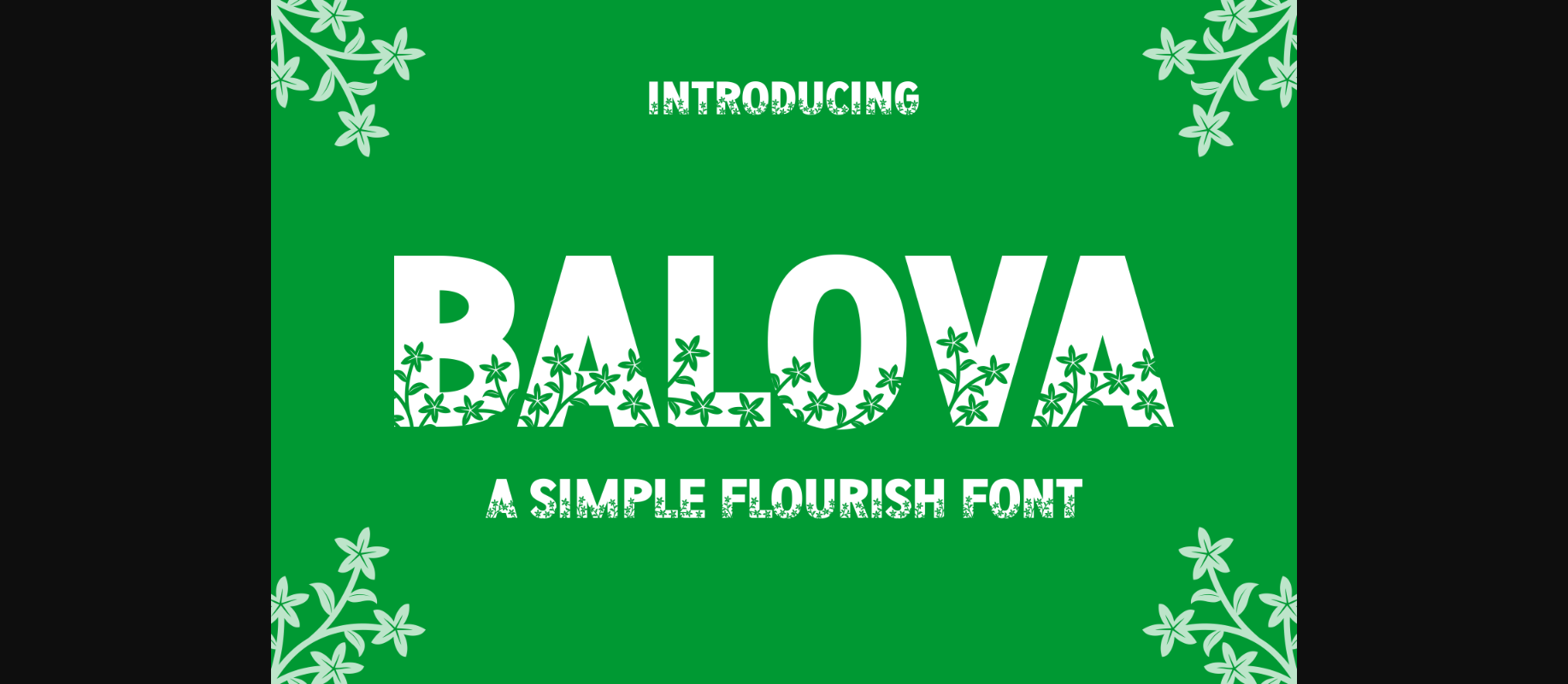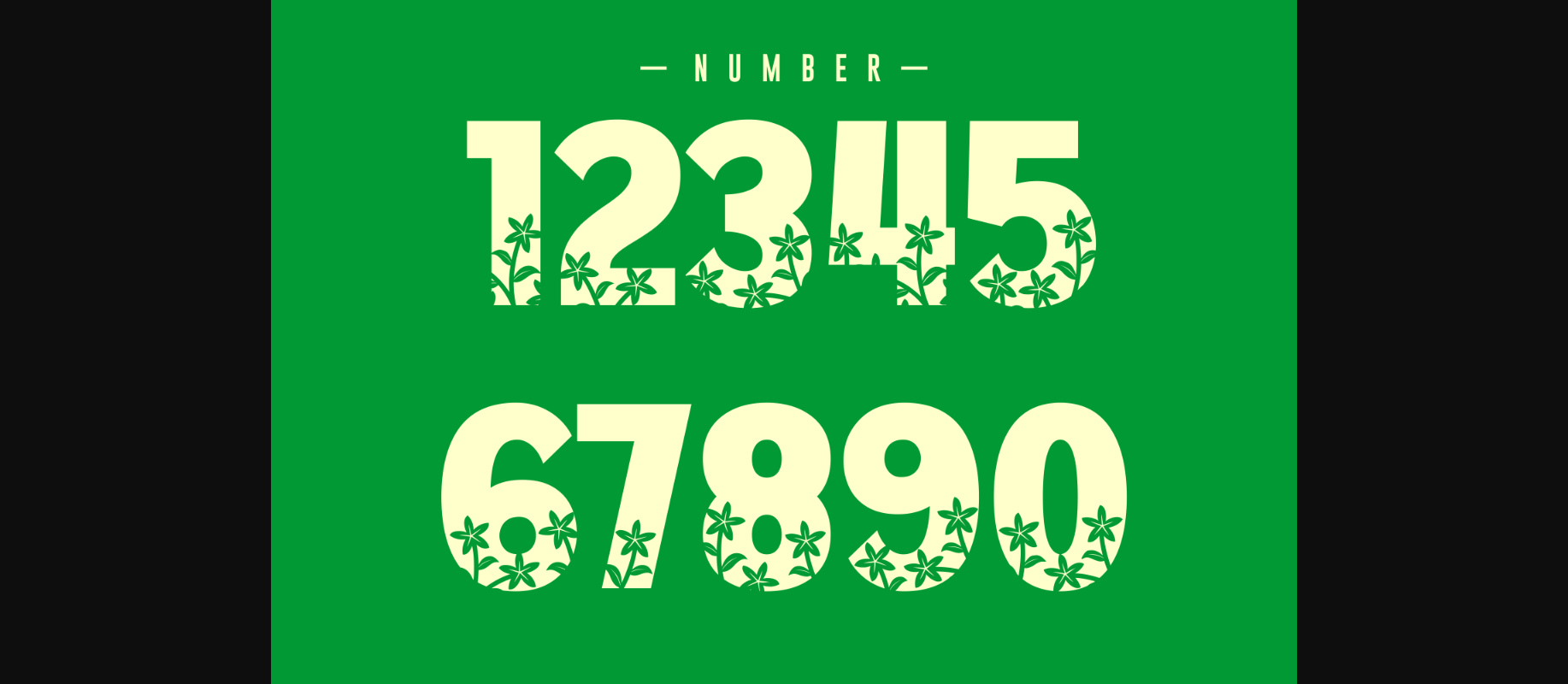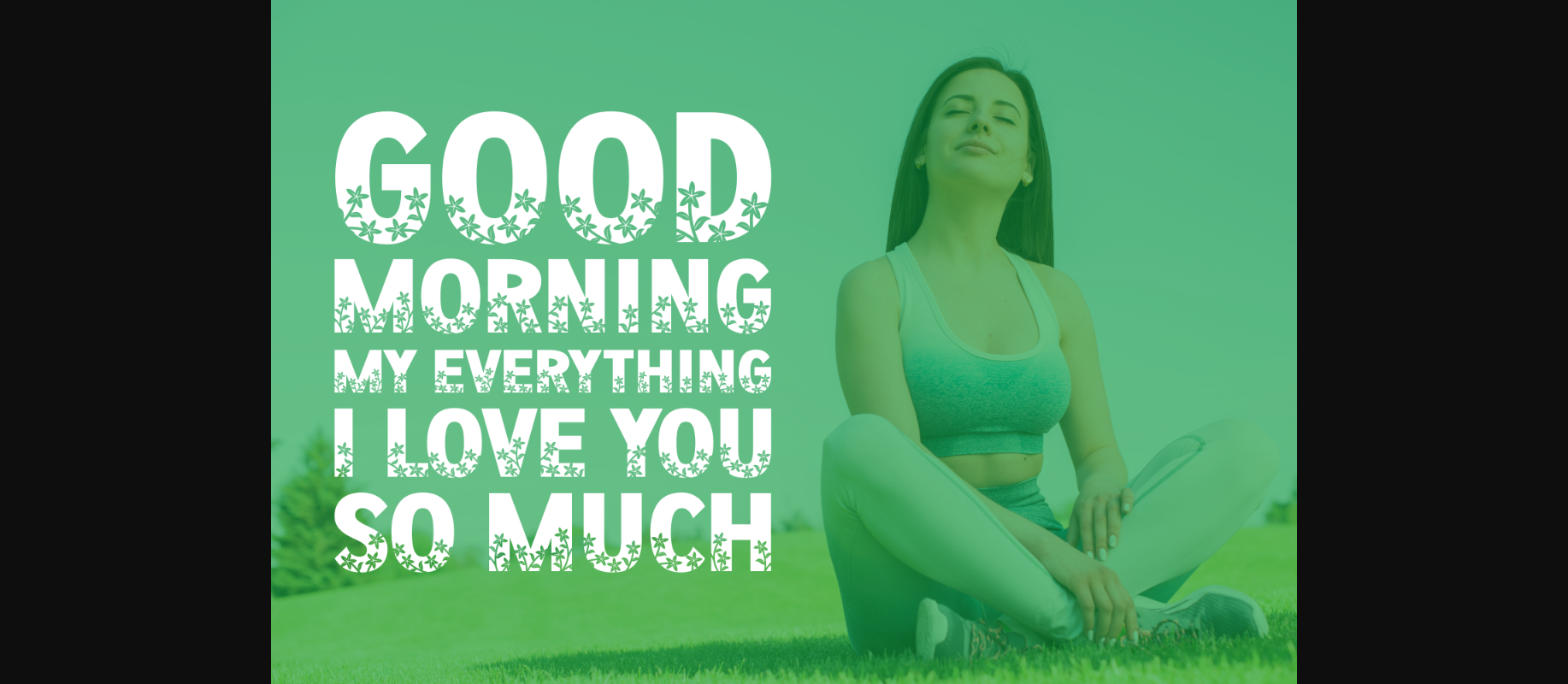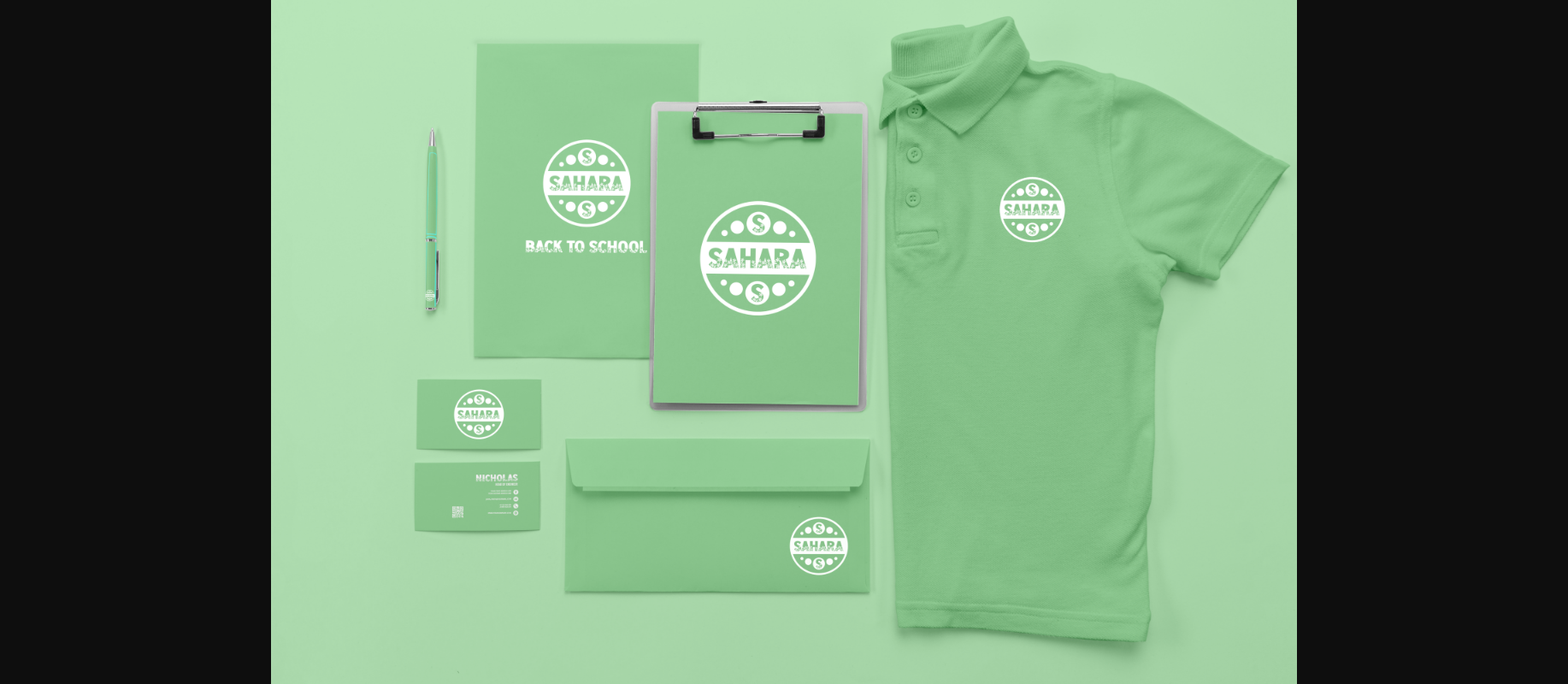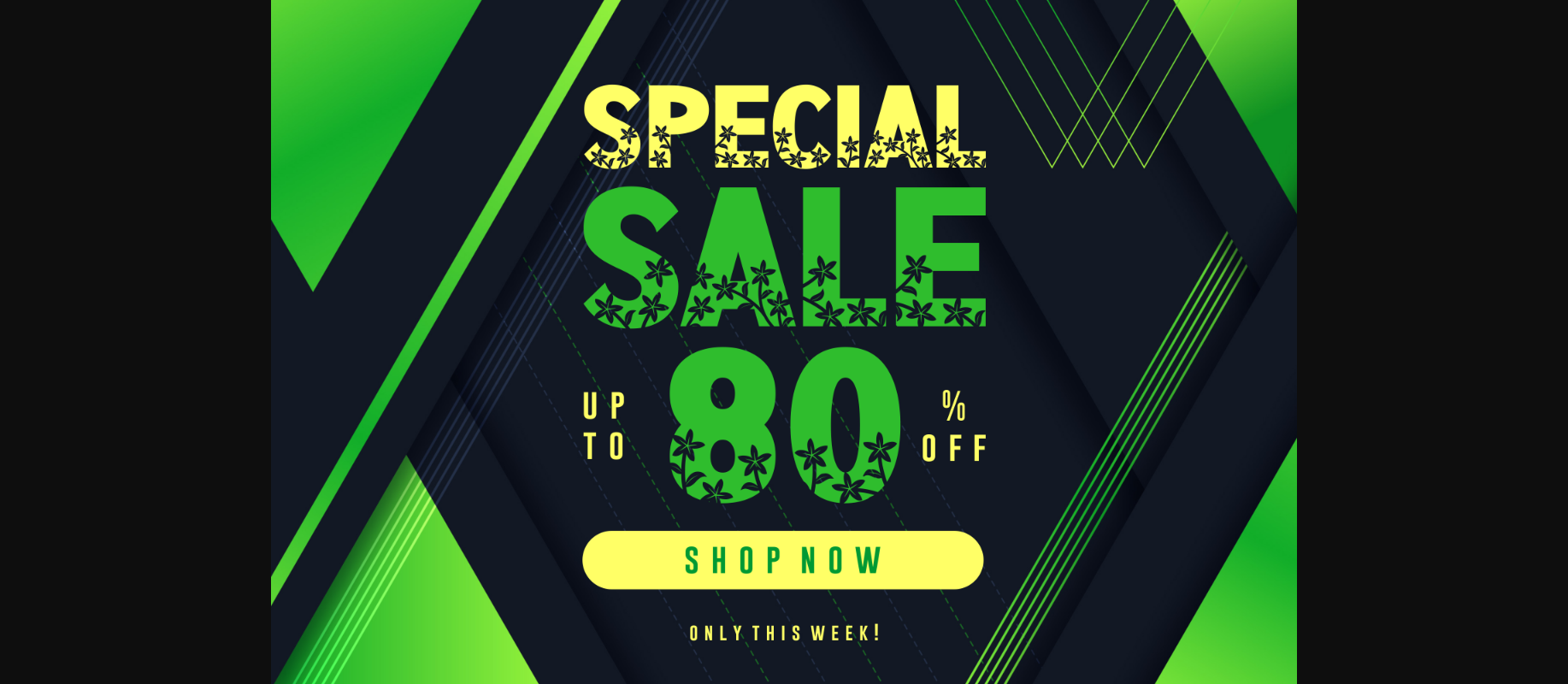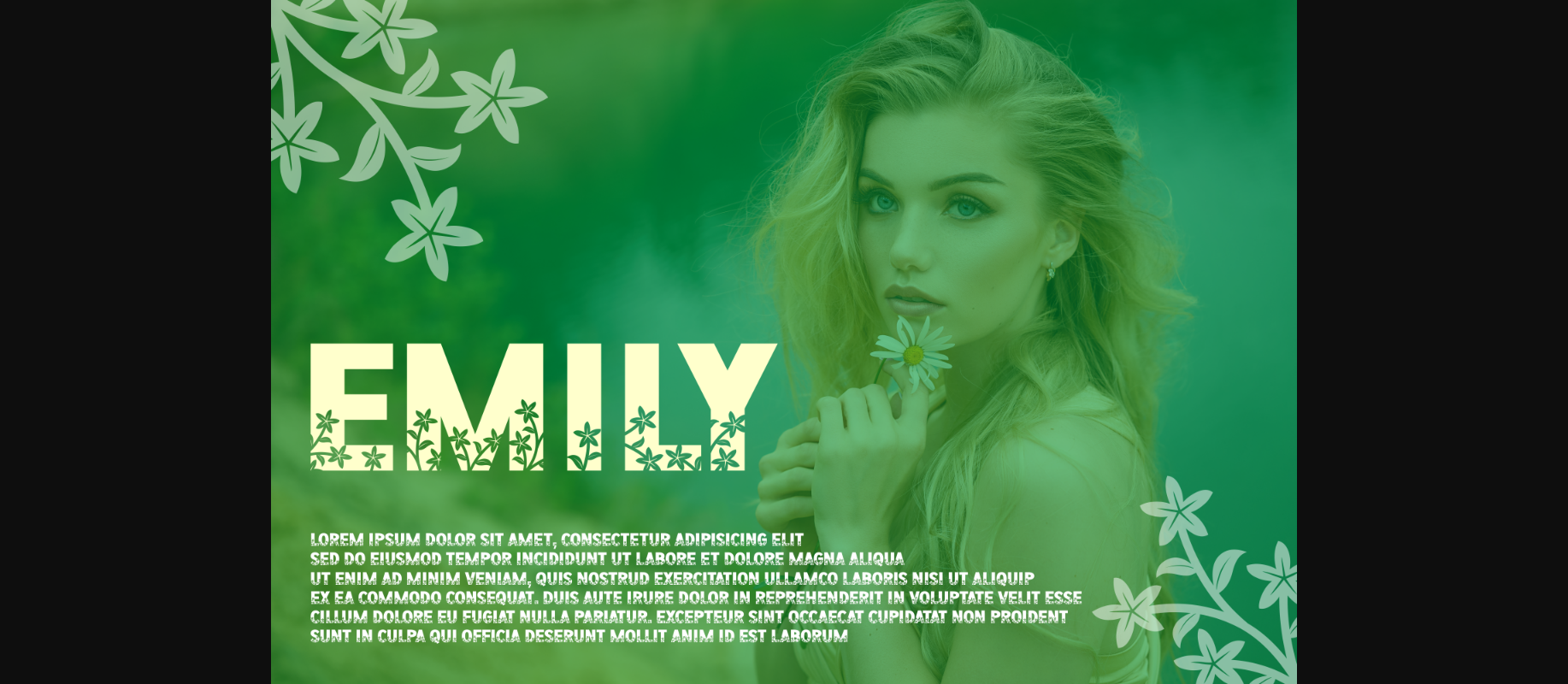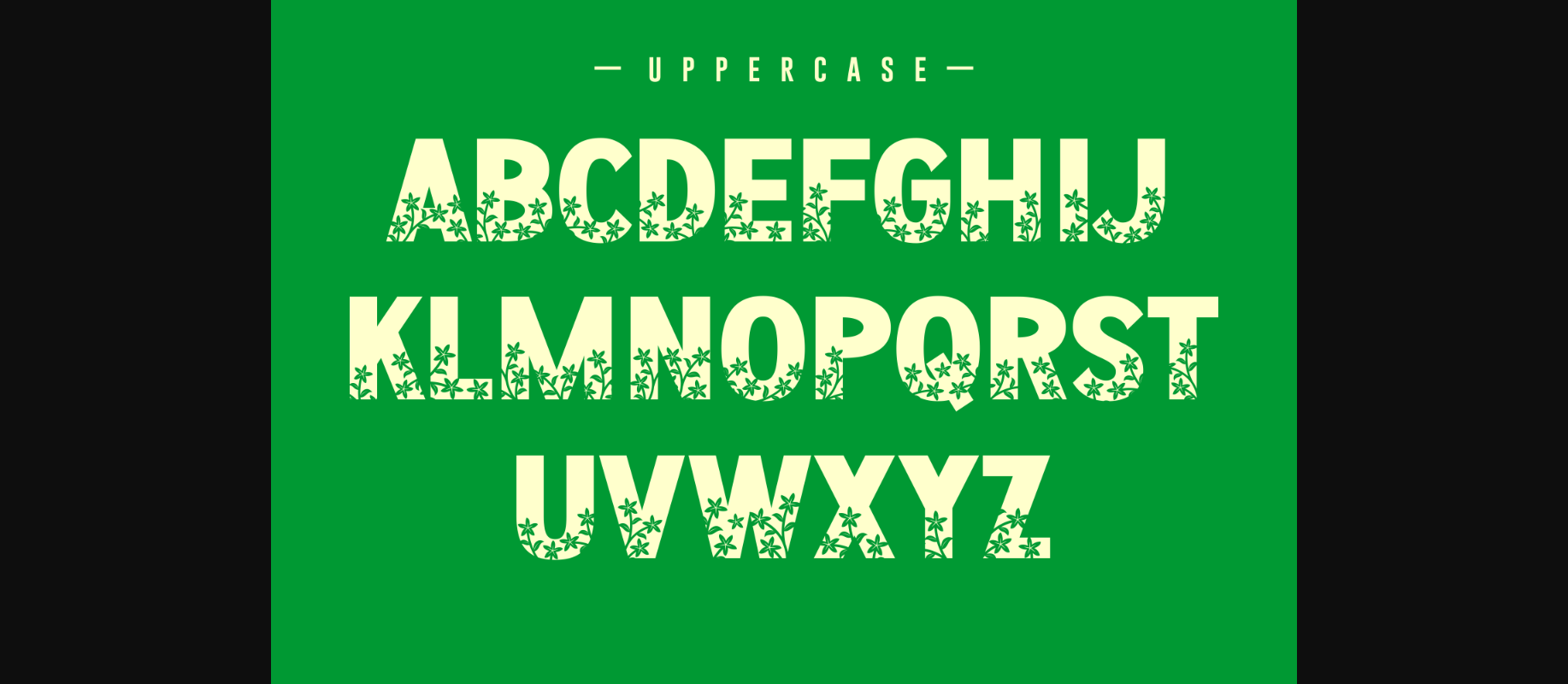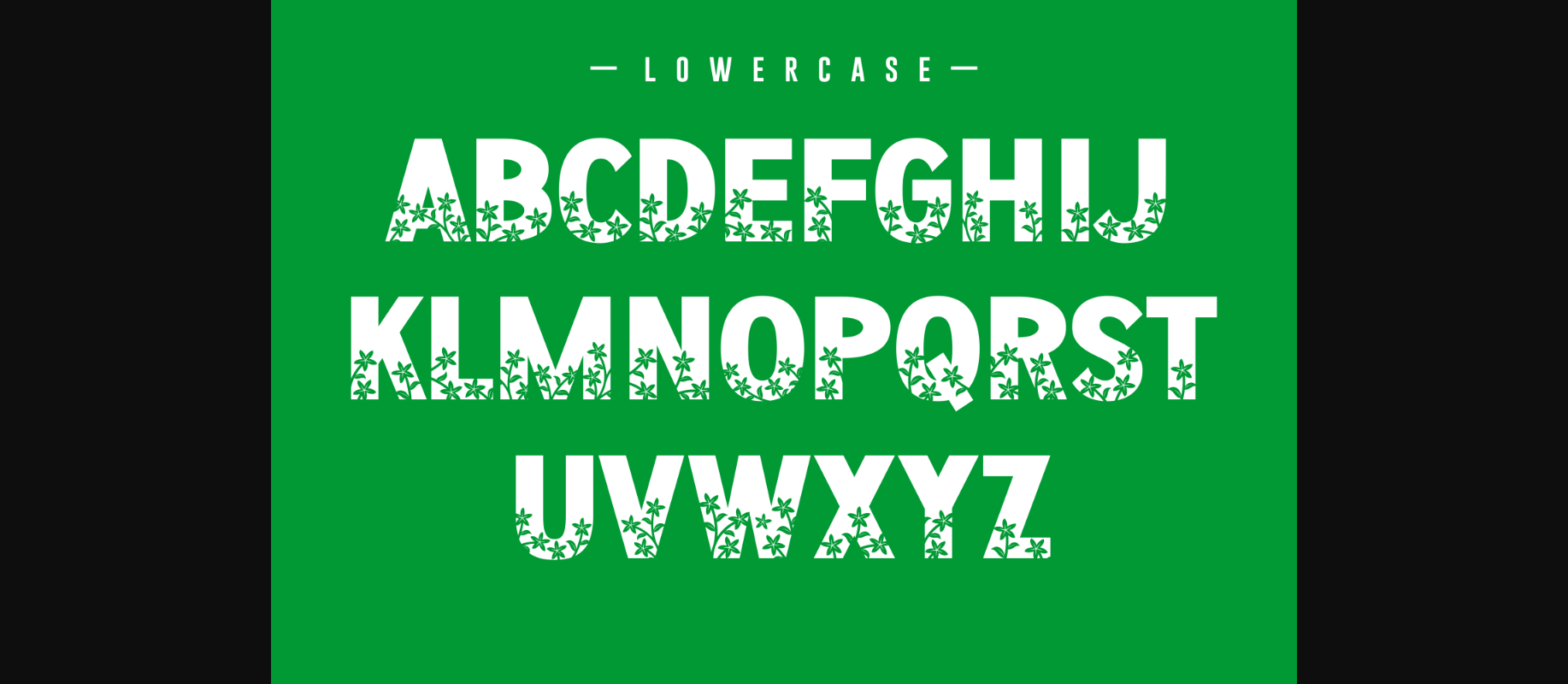
Balova Font
About Balova Font
Balova is a thick lettered yet fresh and flowery decorative font. Whether you use it for cartoon related designs, children games or just any creation that requires a lovely touch, this font will be an amazing choice.